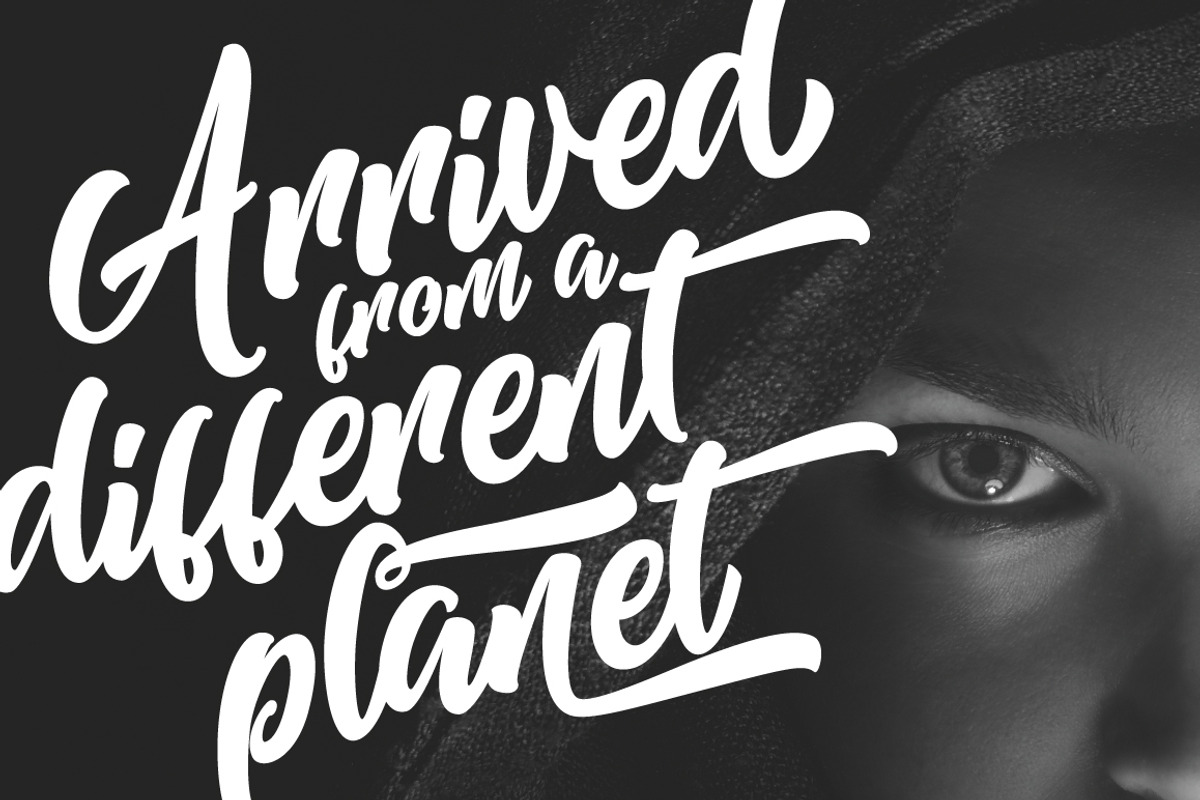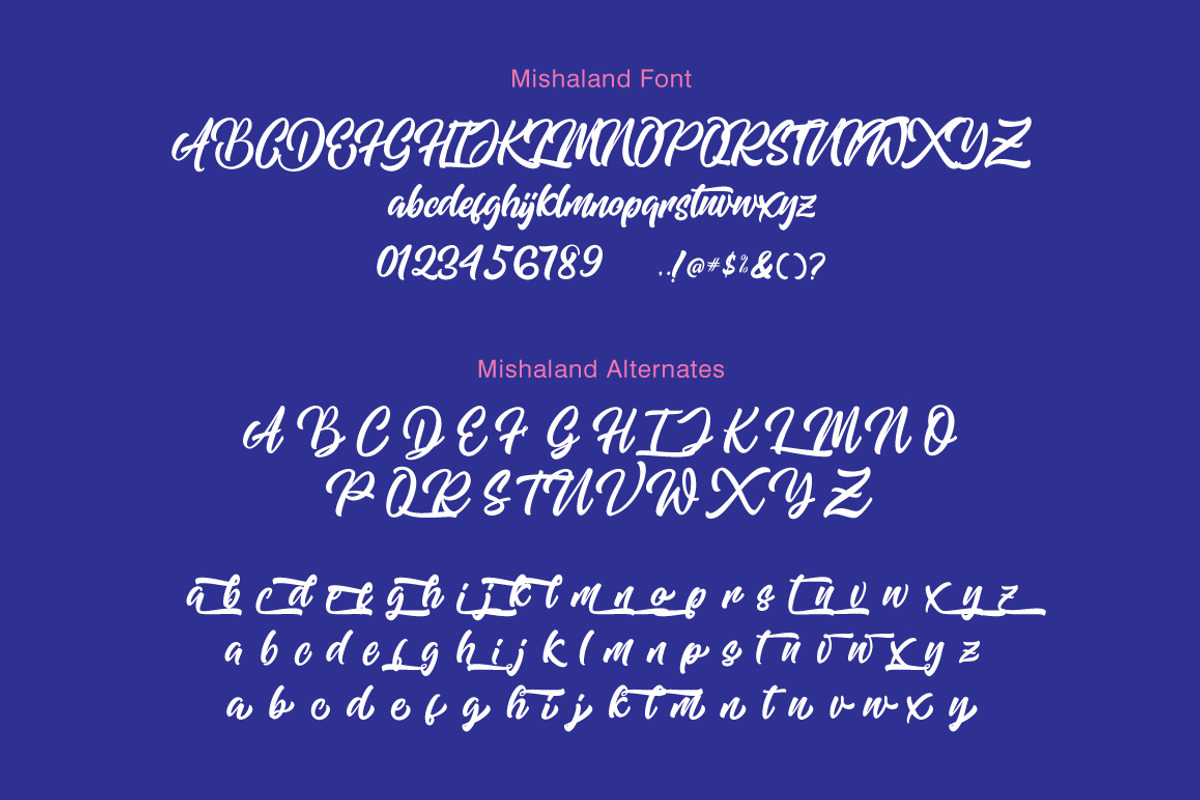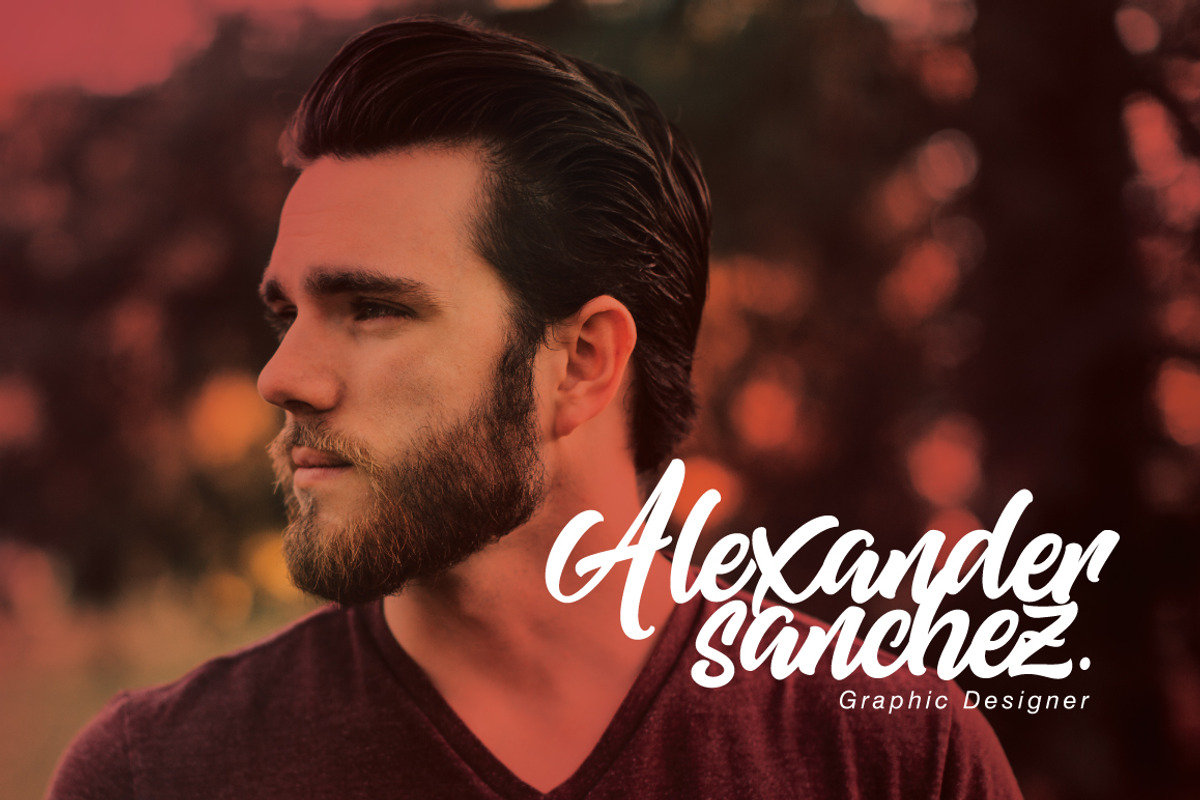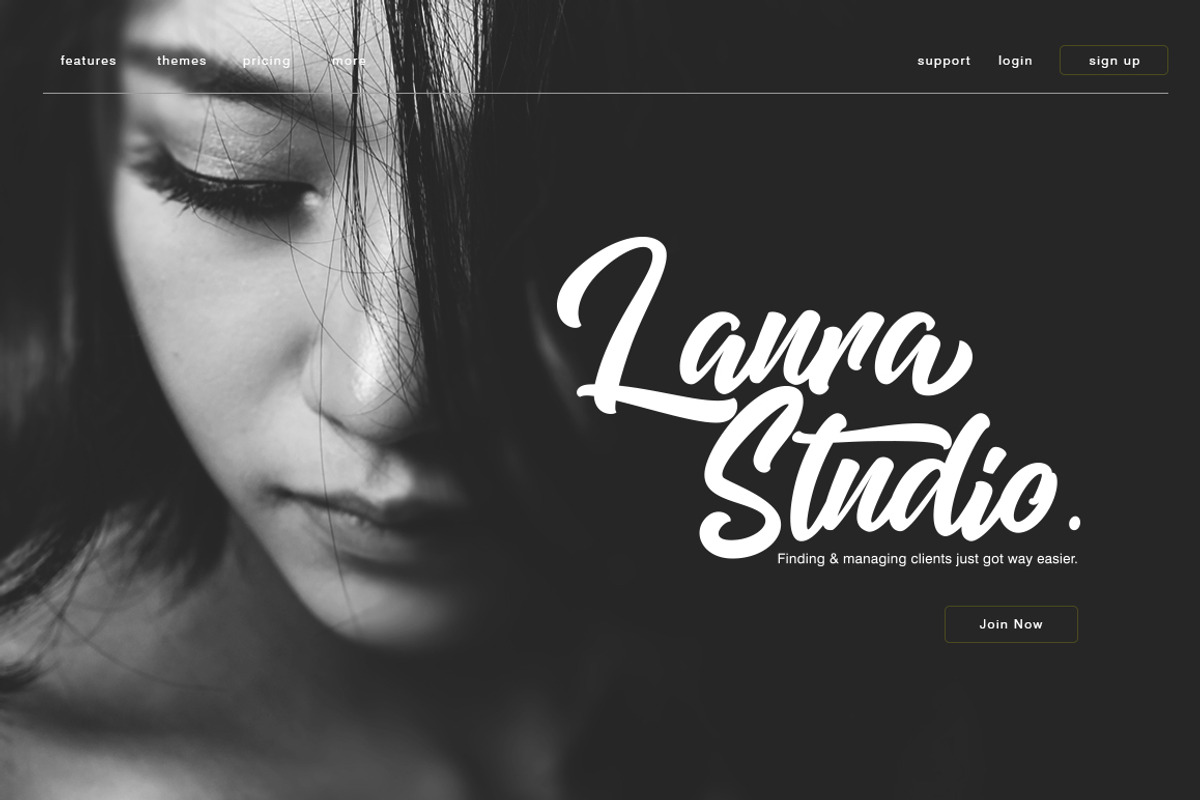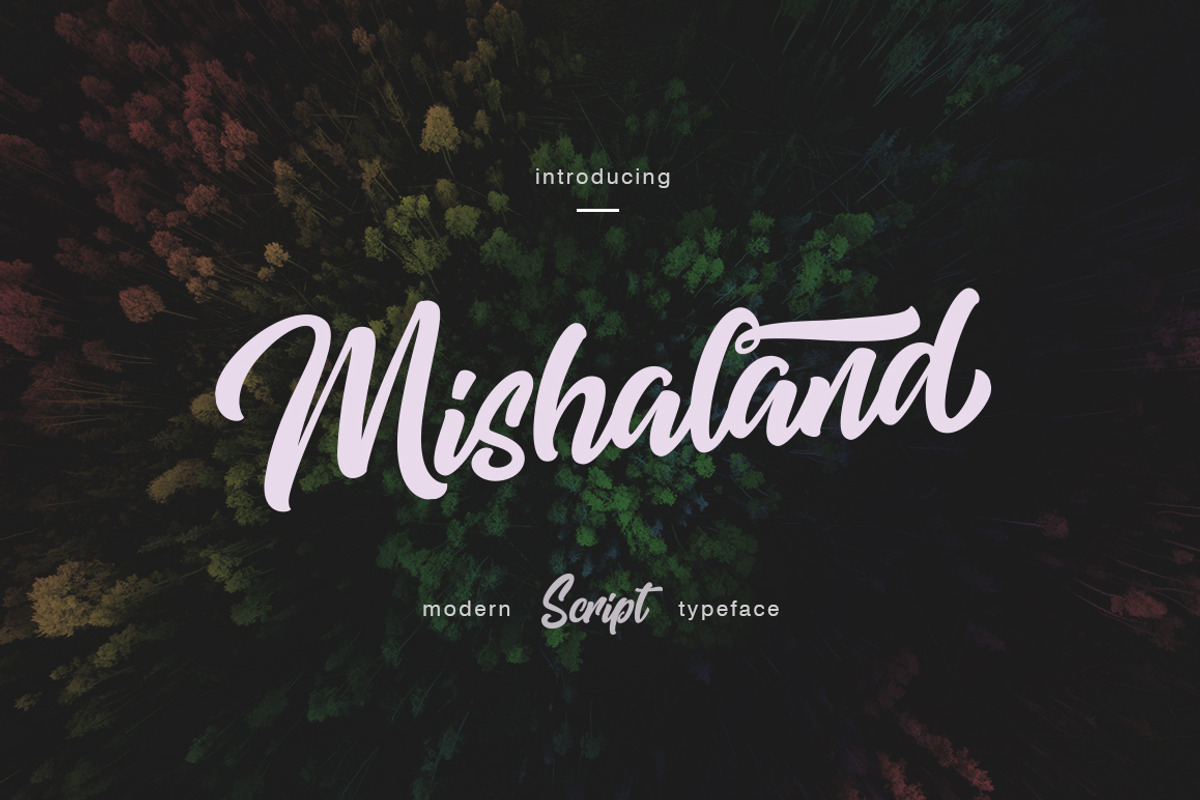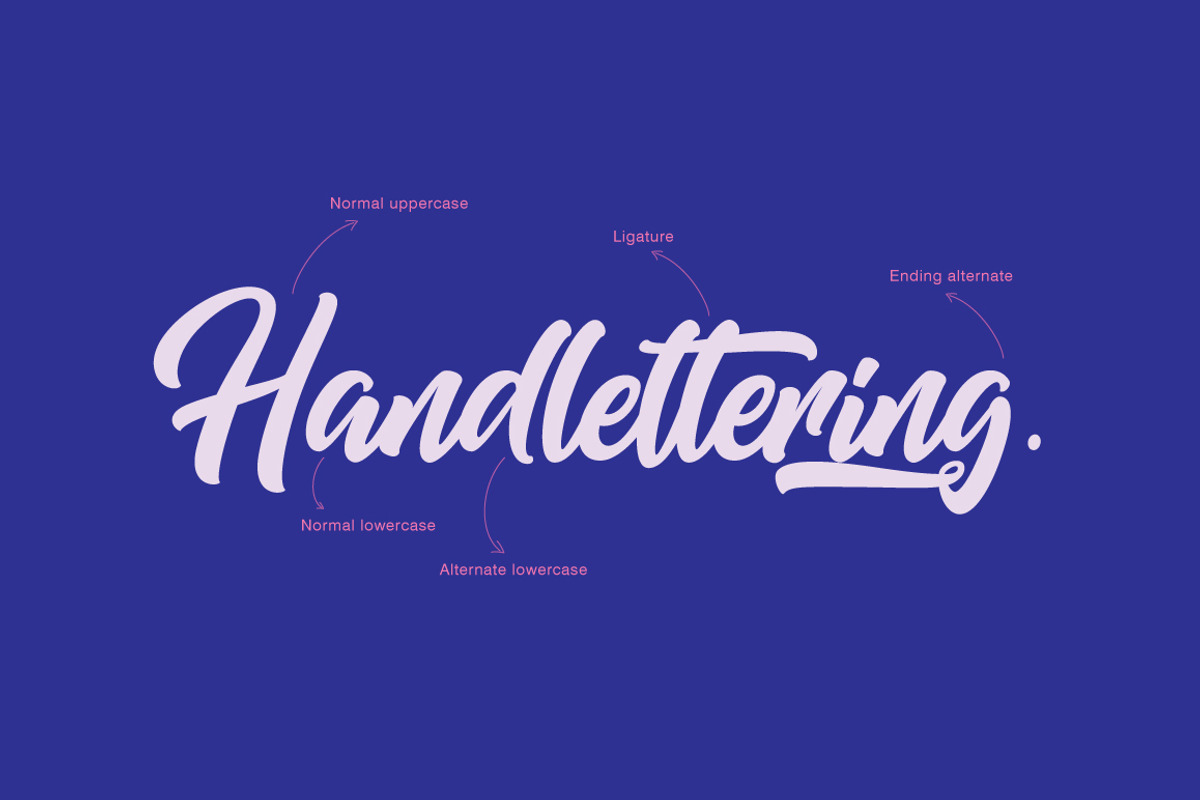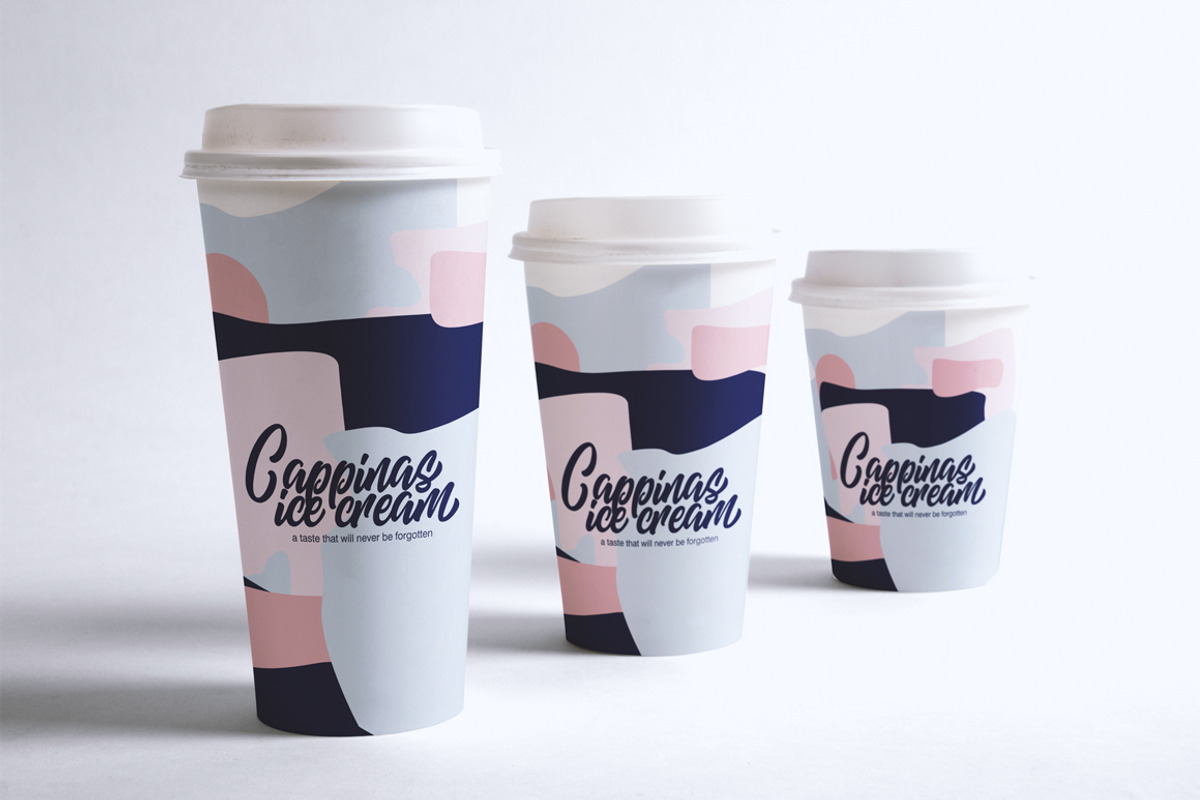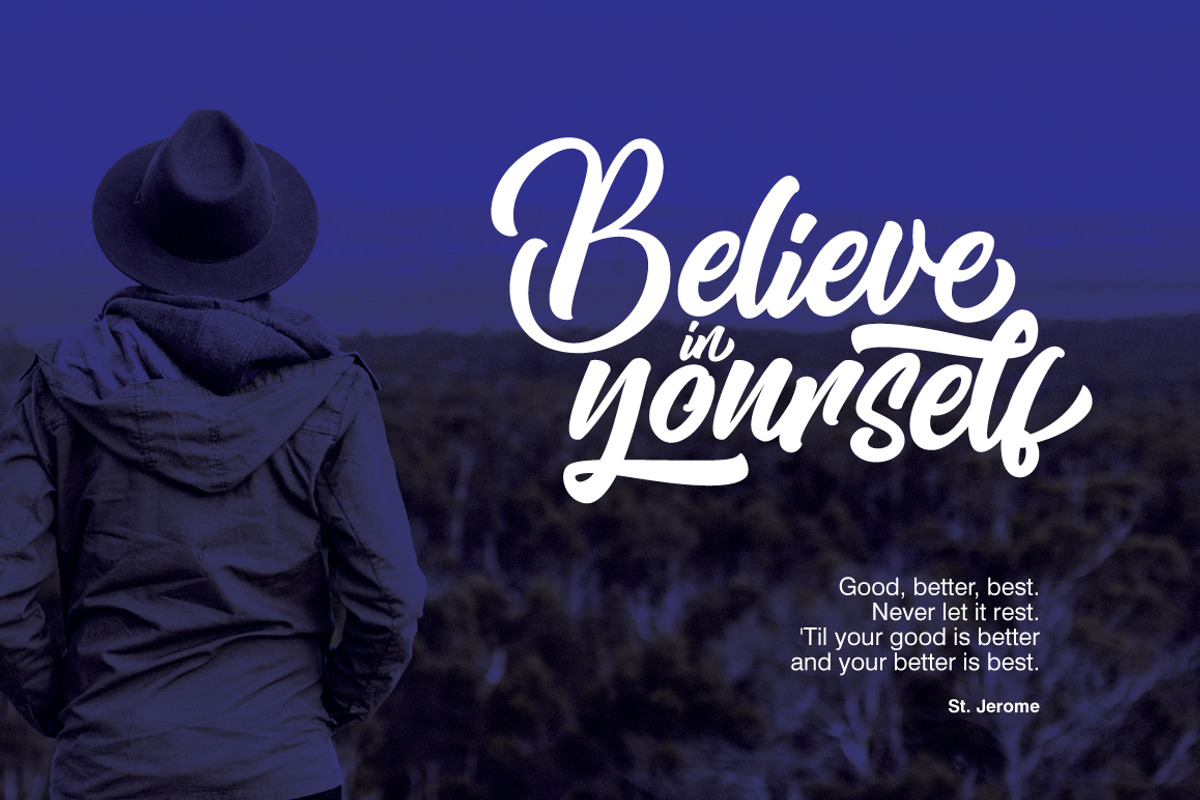
Mishaland Typeface
Hello...!! Welcome to the fresh typeface, this is Mishaland Typeface, script lettering and display type. :). Simple and easy to create awesome lettering, just type your words and then you will immediately see the great results.
Mishaland Typeface is modern handlettering font, every single letters have been carefully crafted to make your text looks beautiful. With modern style this font will perfect for many different project ex: quotes, blog header, poster, wedding, branding, logo, fashion, apparel, letter, invitation, stationery, etc.
The Mishaland Typeface features:
Uppercase & lowercase
Stylistic alternatives & swashes
International characters (Multilingual)
Punctuation & symbols
- Uppercase & lowercase
- Stylistic alternatives & swashes
- Initials & finals
- International characters (Multilingual)
- Punctuation & symbols
Why Mishaland Typeface is worth a look
Mishaland Typeface by Thirtypath Studio fits naturally into Branding, posters, packaging, typography.